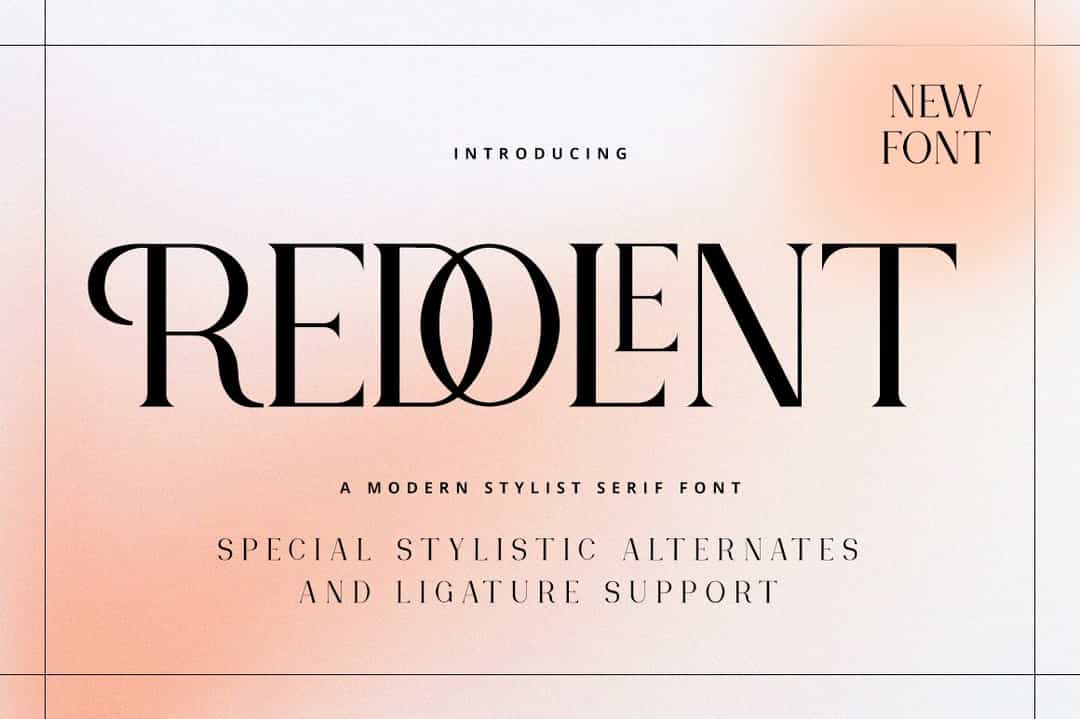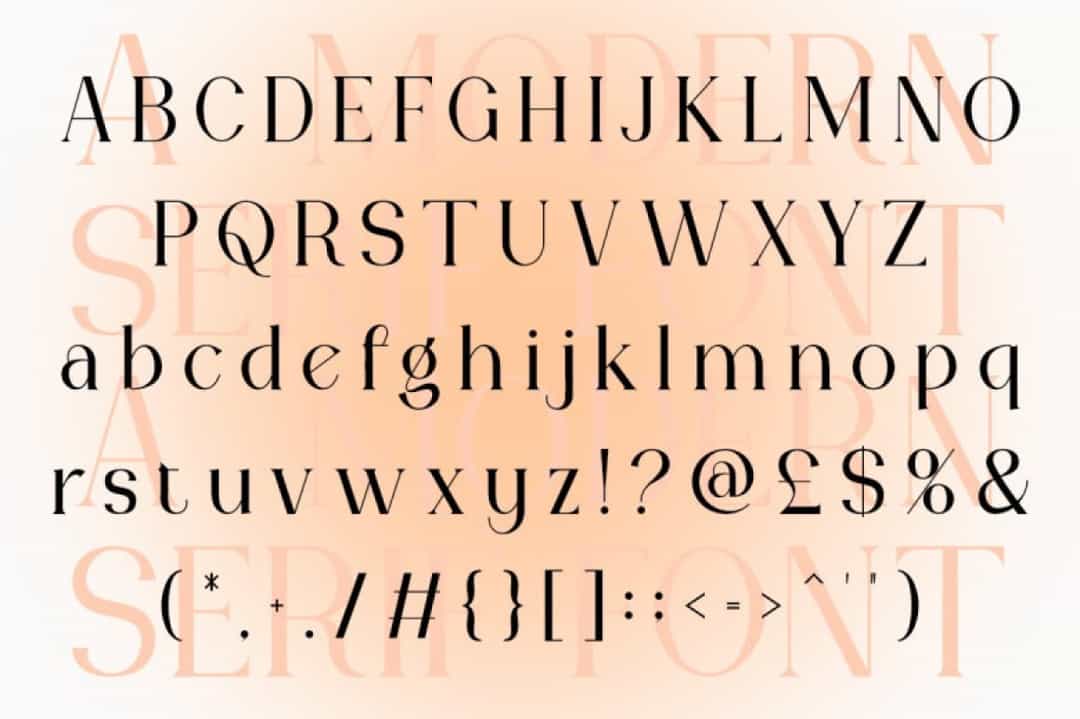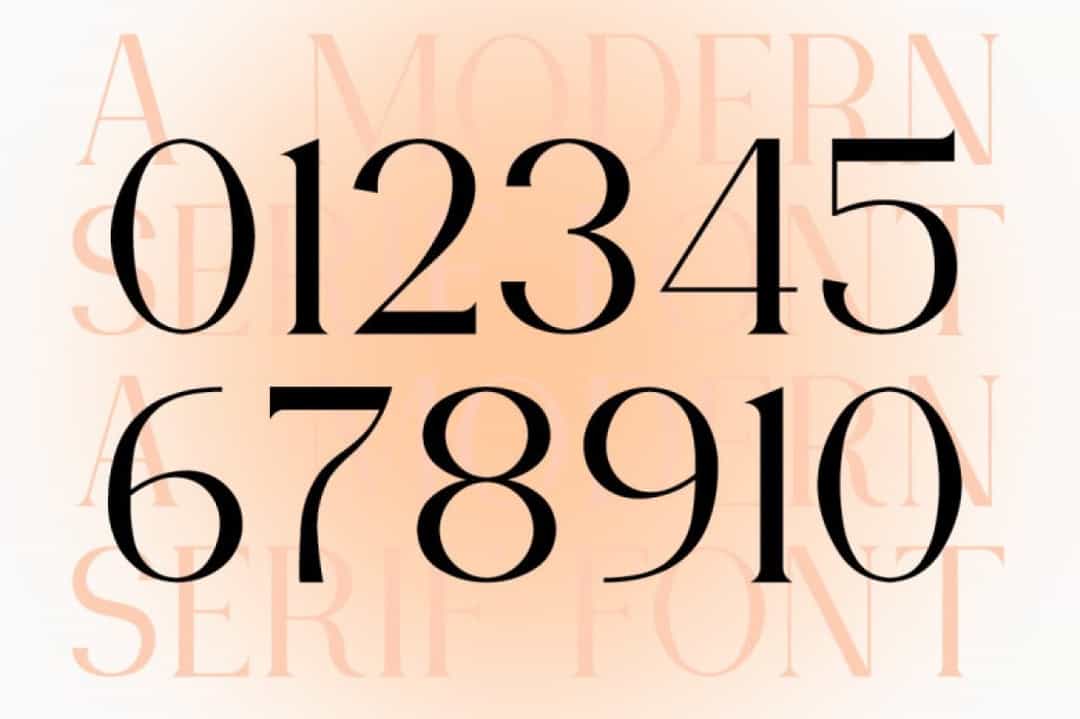
Redolent is an elegant and slim scripted serif typeface with elegant calligraphic motifs while remaining contemporary and modern in appearance. You will surely fall in love with its beauty, taking your projects to the next level!